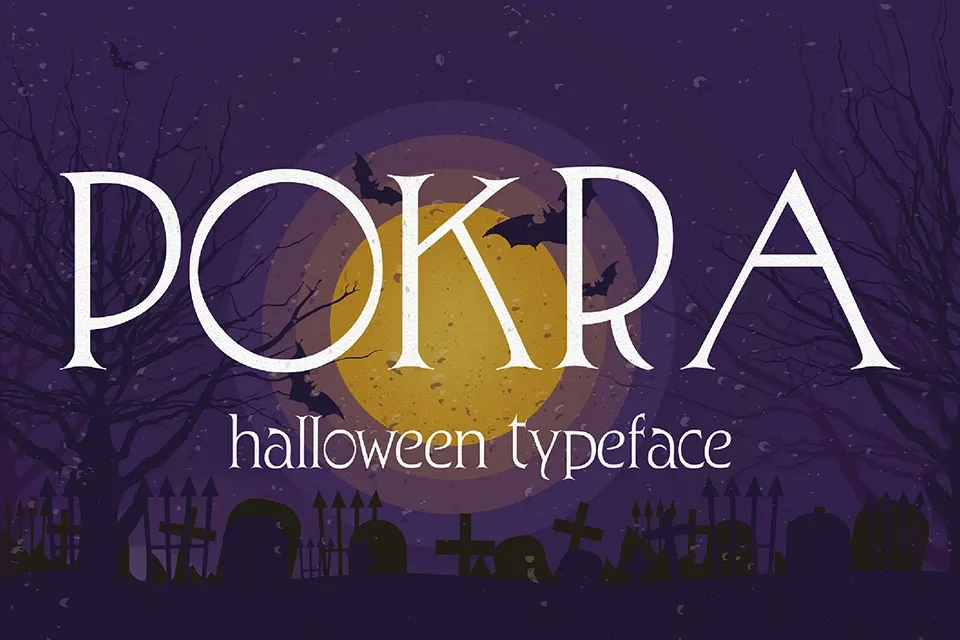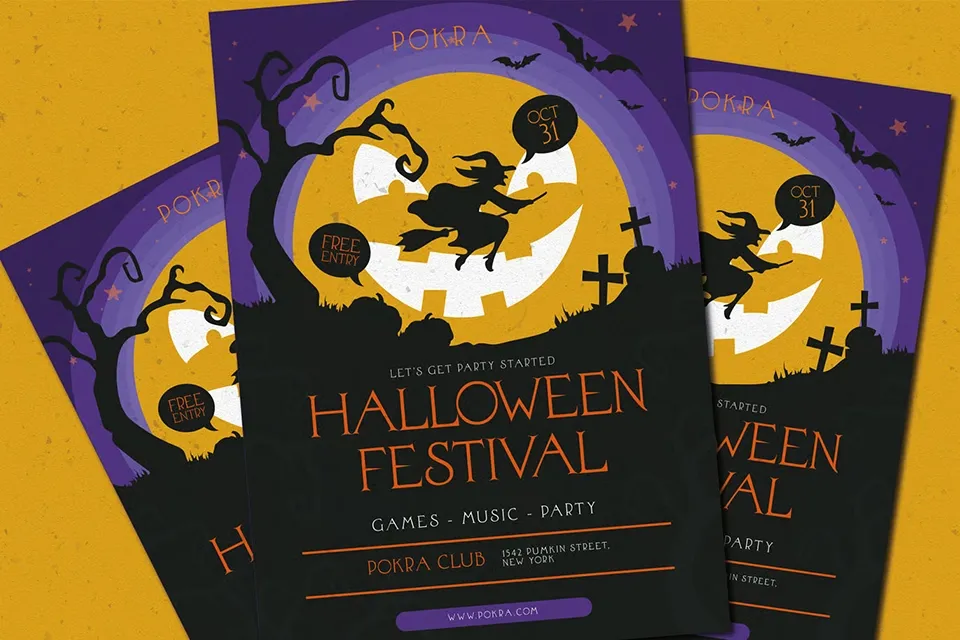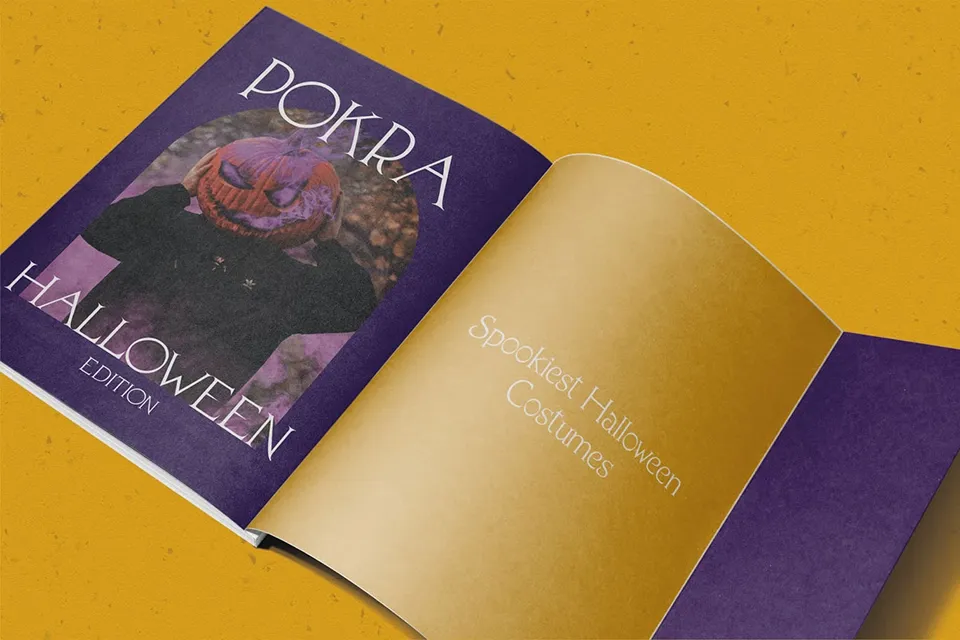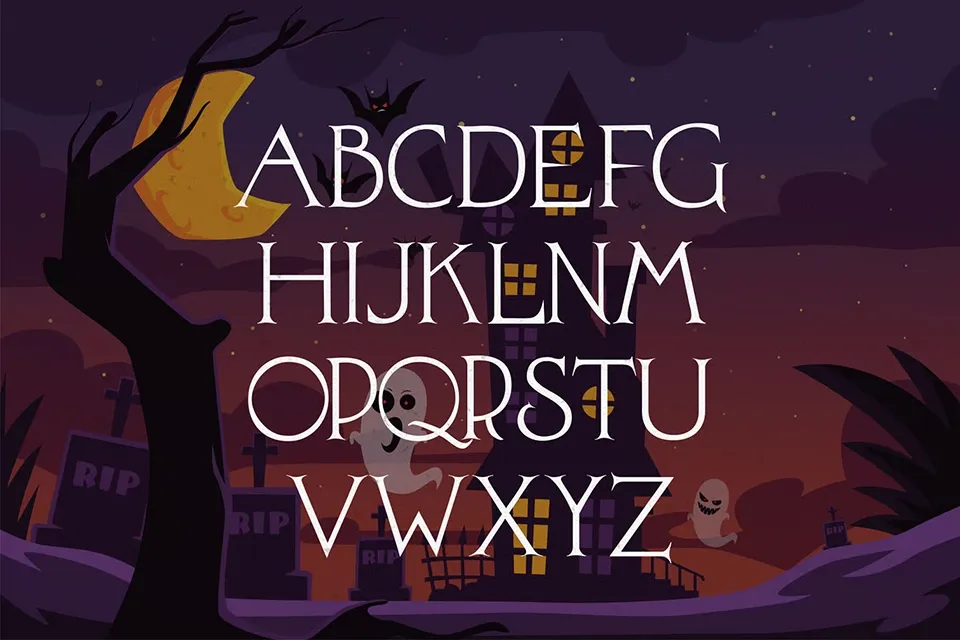
Pokra Font
Pokra Font is a whimsical Halloween-themed typeface designed to add a playful and catchy touch to your creative projects. Its unique style makes it perfect for festive designs, invitations, posters, and any project that requires a touch of spooky charm and elegance.